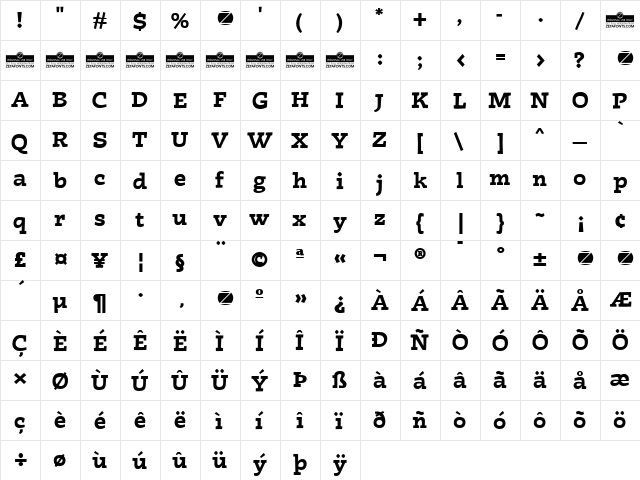
Radcliffe Casual Bold
| Foundry | Studio Kmzero |
| Designer | Cosimo Lorenzo Pancini |
Design Context for Radcliffe Casual Typeface
Radcliffe Casual takes a measured approach to typography — its balanced proportions and neutral character make it a reliable workhorse for both digital and print work. The heavy weight commands attention and anchors typographic hierarchies.